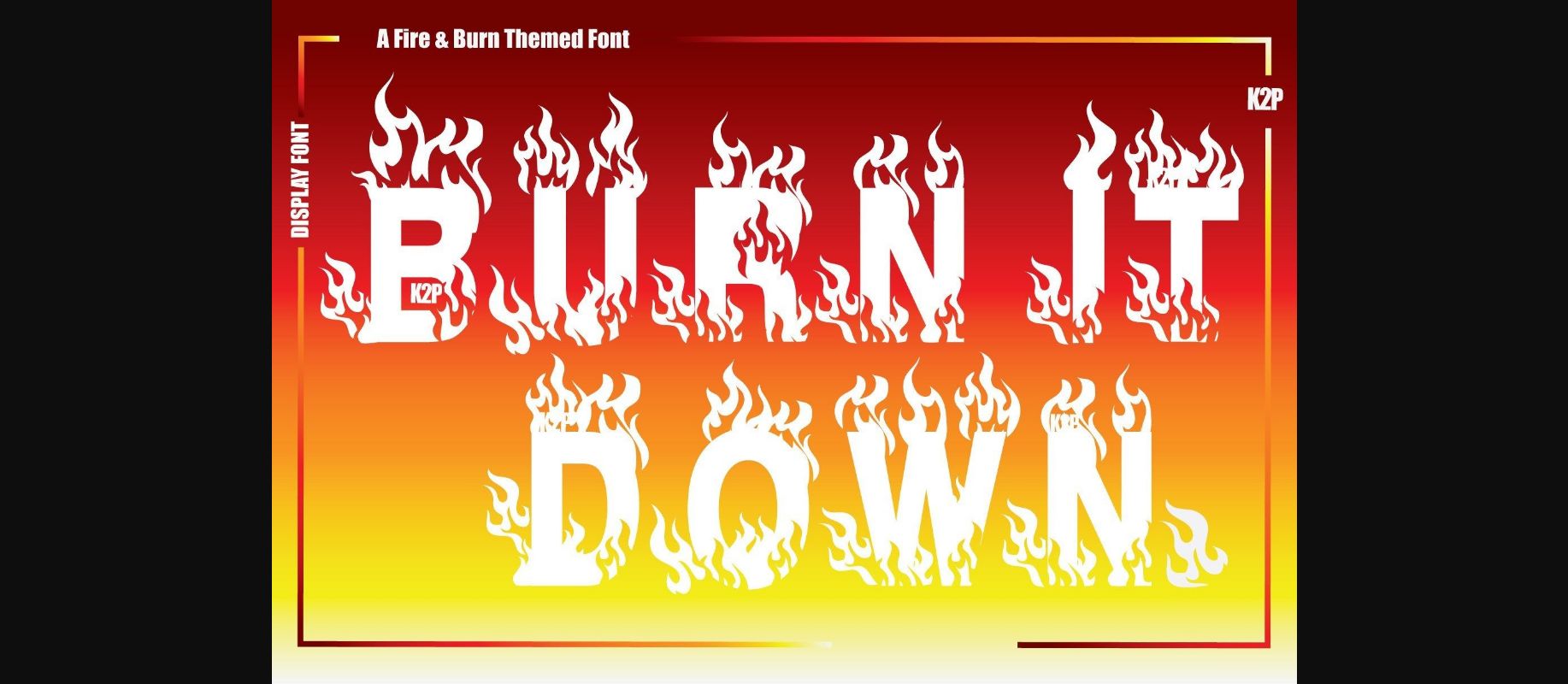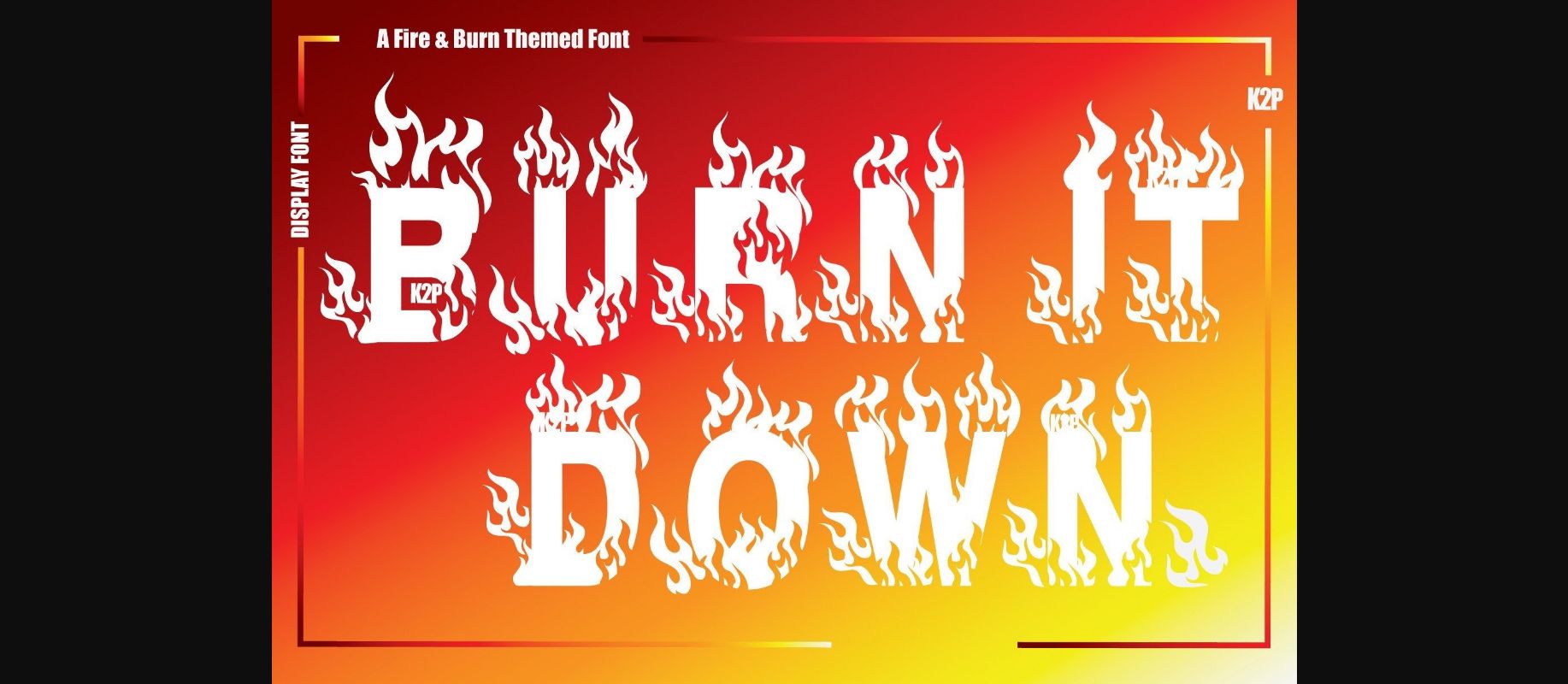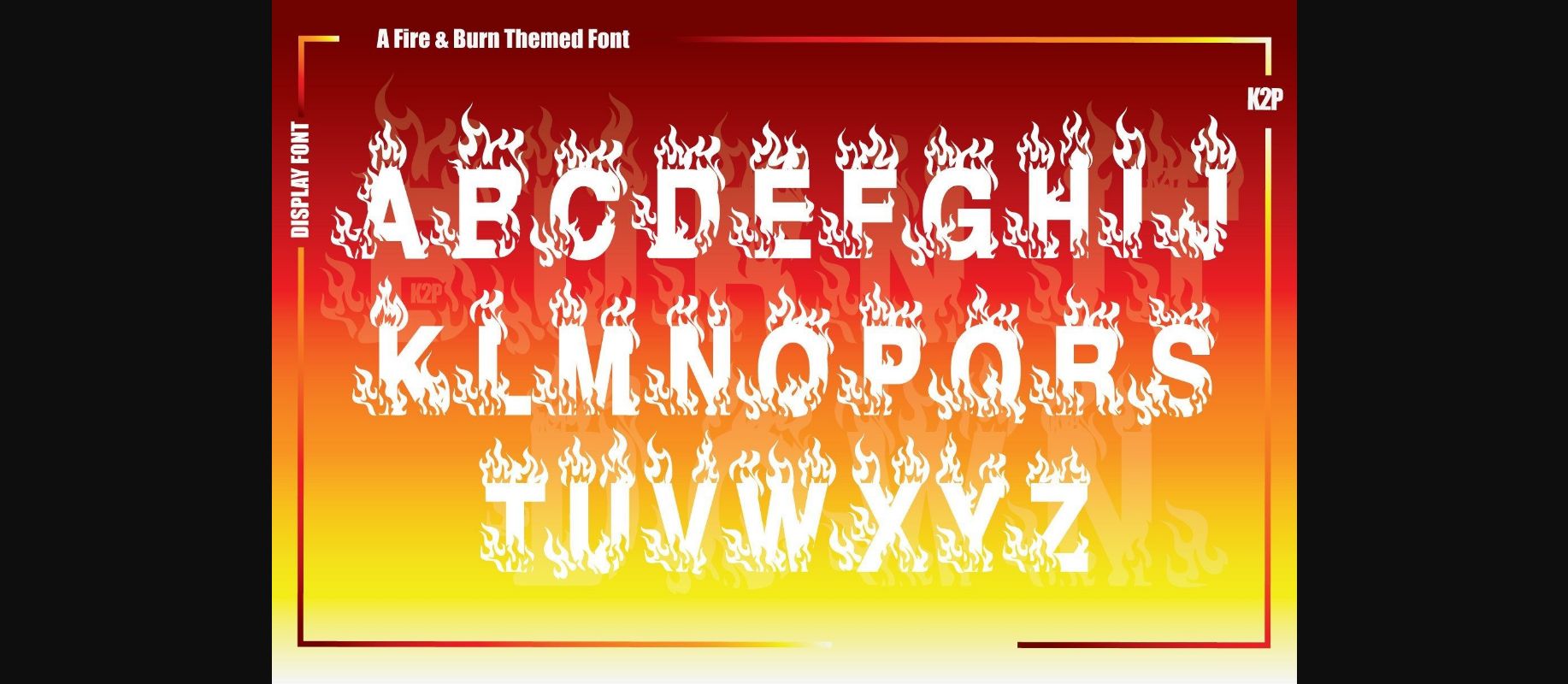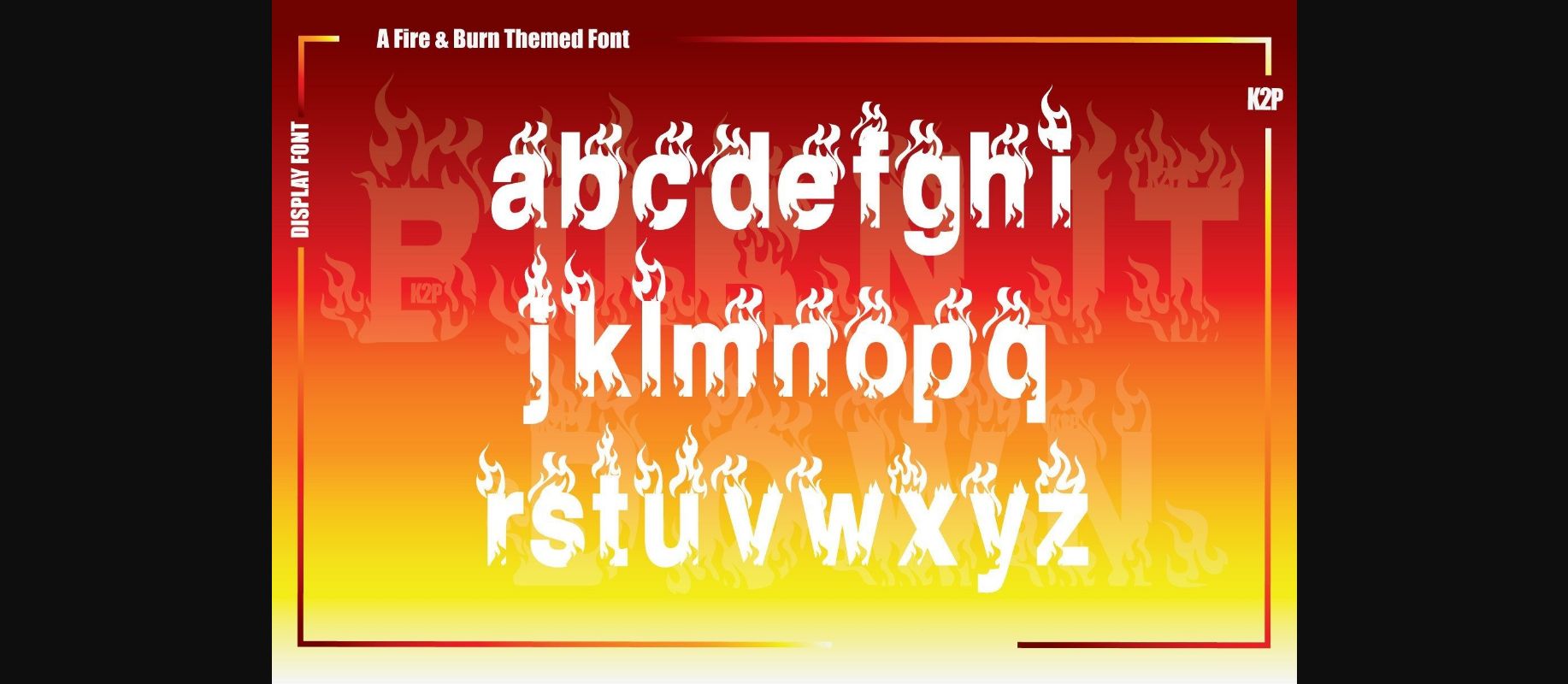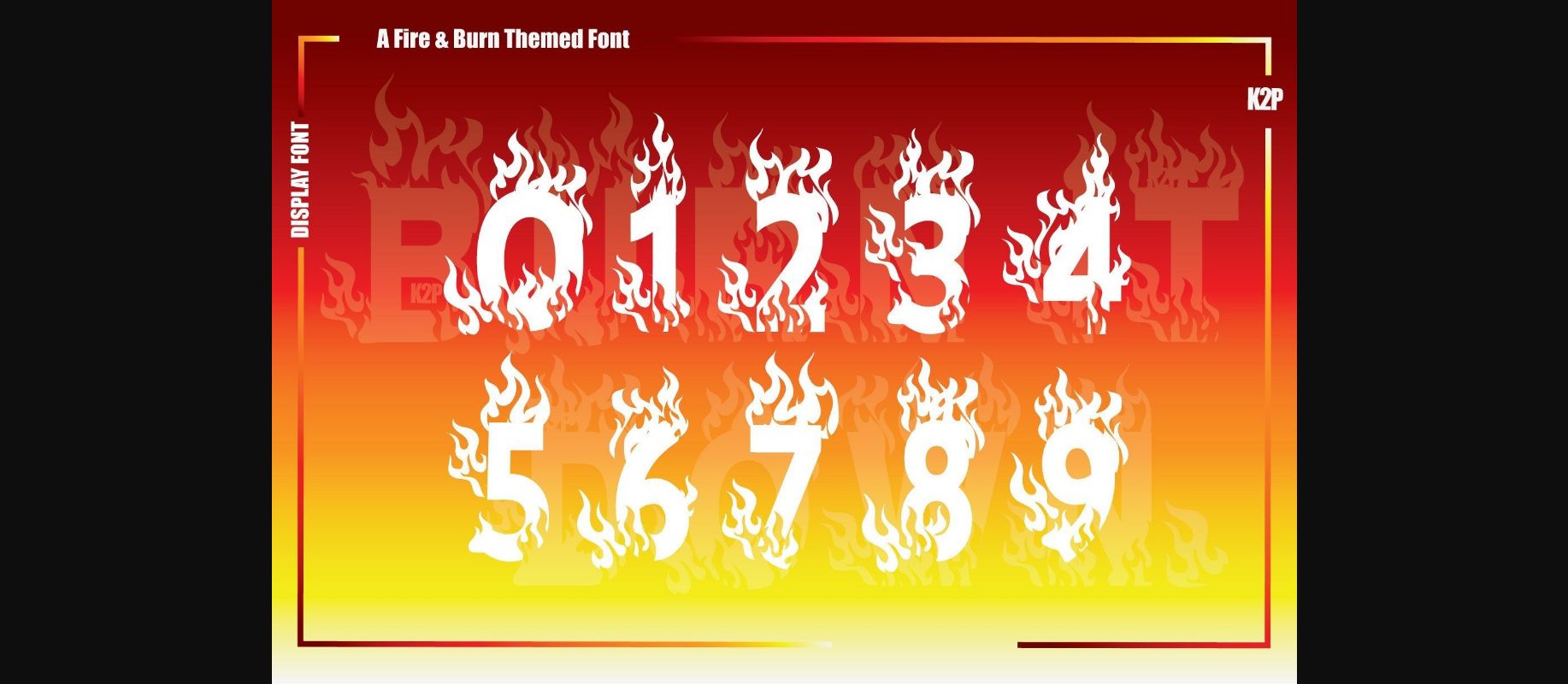
Burn It Down Font
About Burn It Down Font
Burn It Down is a unique, thick lettered, and daring decorative font. No matter the topic, this font will be an incredible asset to your fonts’ library, as it has the potential to elevate any creation. This font is PUA encoded, which means you can access all of the glyphs and swashes with ease!